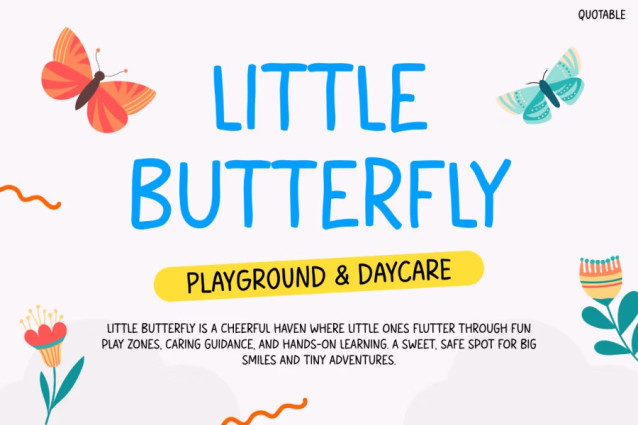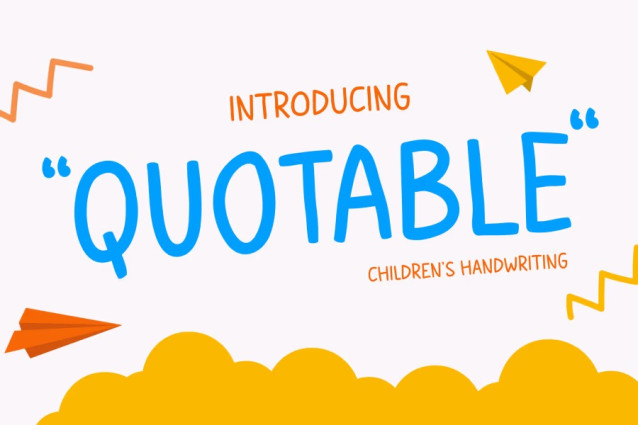
Quotable Font is a joyful and friendly typeface created to brighten every design. It uses soft curves, rounded shapes, and expressive strokes that make each word feel fun and full of energy. Moreover, its simple but lively style helps messages stand out in a warm and positive way. The font looks engaging in every preview image, and it adapts easily to quotes, posters, kids’ branding, school themes, and creative merchandise. Because of this flexibility, the font works well for designers who want a cheerful visual style that feels inviting and easy to read. Therefore, it becomes a great choice for projects that need a light, uplifting, and kid-friendly atmosphere.
Kids Font QUOTABLE adds charm and personality to many types of layouts. Motivational quotes become more comforting, while event posters gain a brighter and more welcoming look. Furthermore, its rounded letters improve readability even when used with bold colors or busy graphics.
The playful shapes also help the font stay engaging, and each character brings a unique rhythm to the design. Consequently, the typeface works smoothly in both print and digital formats, making it suitable for a wide range of creative needs. Ultimately, it provides designers with a cute, expressive, and dependable option for child-focused visuals.
Who Is It Best For?
Kids Font QUOTABLE is perfect for teachers who create classroom materials, posters, or worksheets. Likewise, children’s book authors can use it to bring stories to life with a warm and approachable tone. Furthermore, daycares and kindergartens can use it to build friendly branding that feels safe and joyful.
Additionally, designers who produce merchandise will appreciate its playful look on mugs, labels, T-shirts, stickers, and social media graphics. In short, it is ideal for anyone who needs a happy and colorful font for young audiences.